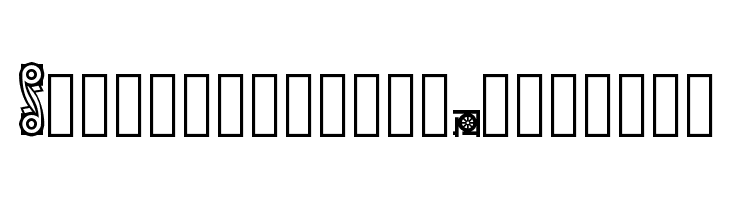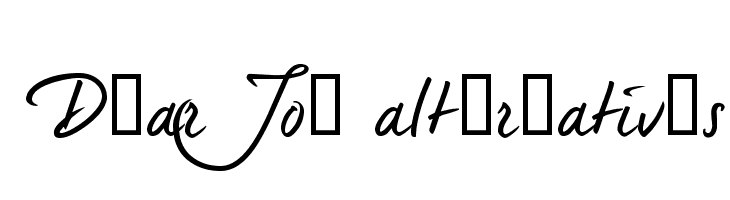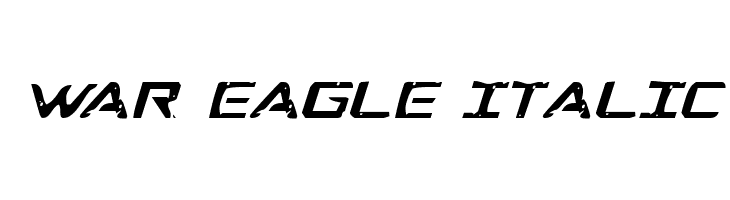
A modern, geometric font with thin, even strokes and a minimalist design.
A bold, outlined, handwritten-style font with a playful and casual appearance.
A sleek, modern, and italic font with elongated, narrow letterforms and high contrast.
A bold, semi-italic font with a modern and dynamic style.
A bold, angular italic font with a futuristic and geometric style.
A modern, rounded sans-serif font with a friendly and balanced appearance.
A playful, dotted decorative font with a hand-drawn style.
设计师偏爱 Cypher Light, NewSymbolFont 8, SlabSerifWrittenOutlineBold, Morganite Light Italic and In! Dude! Woah!,因为其造型干净、适用范围广—— 从品牌识别到落地页、海报都能胜任。